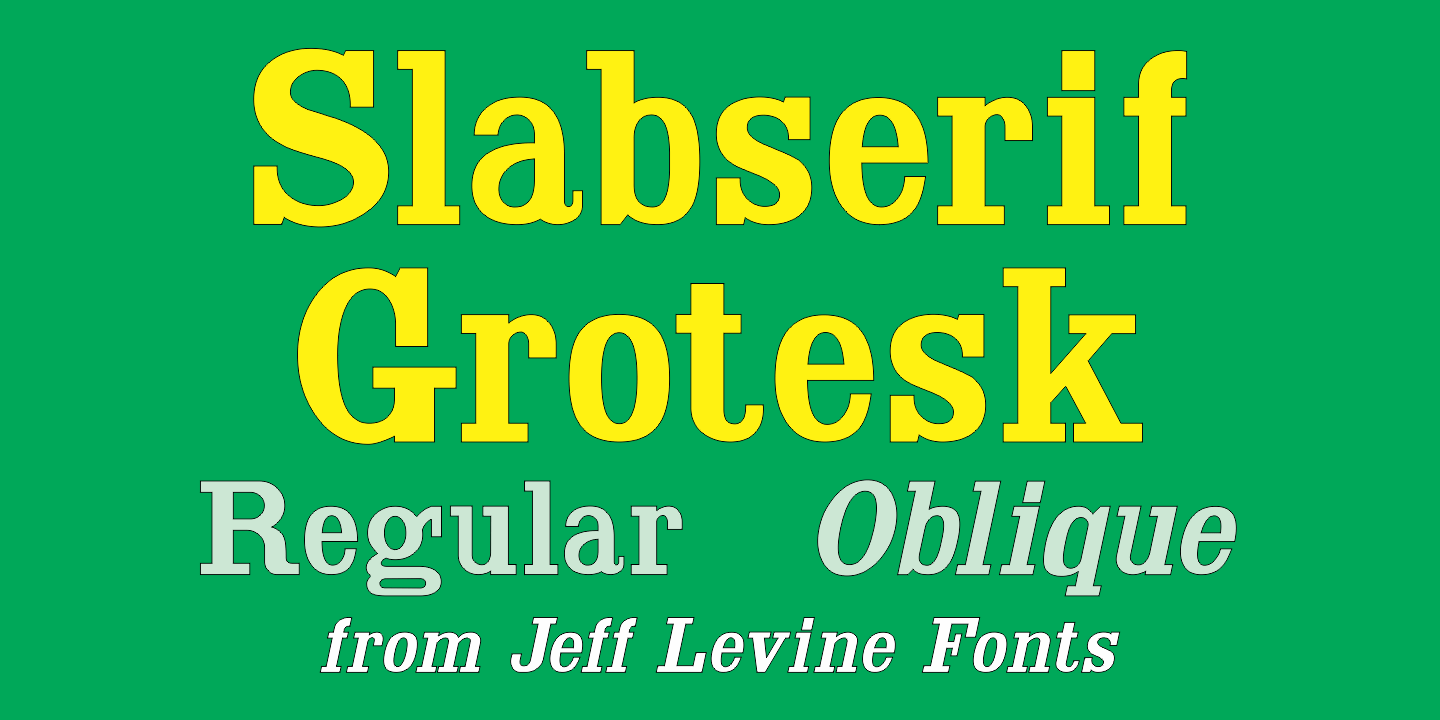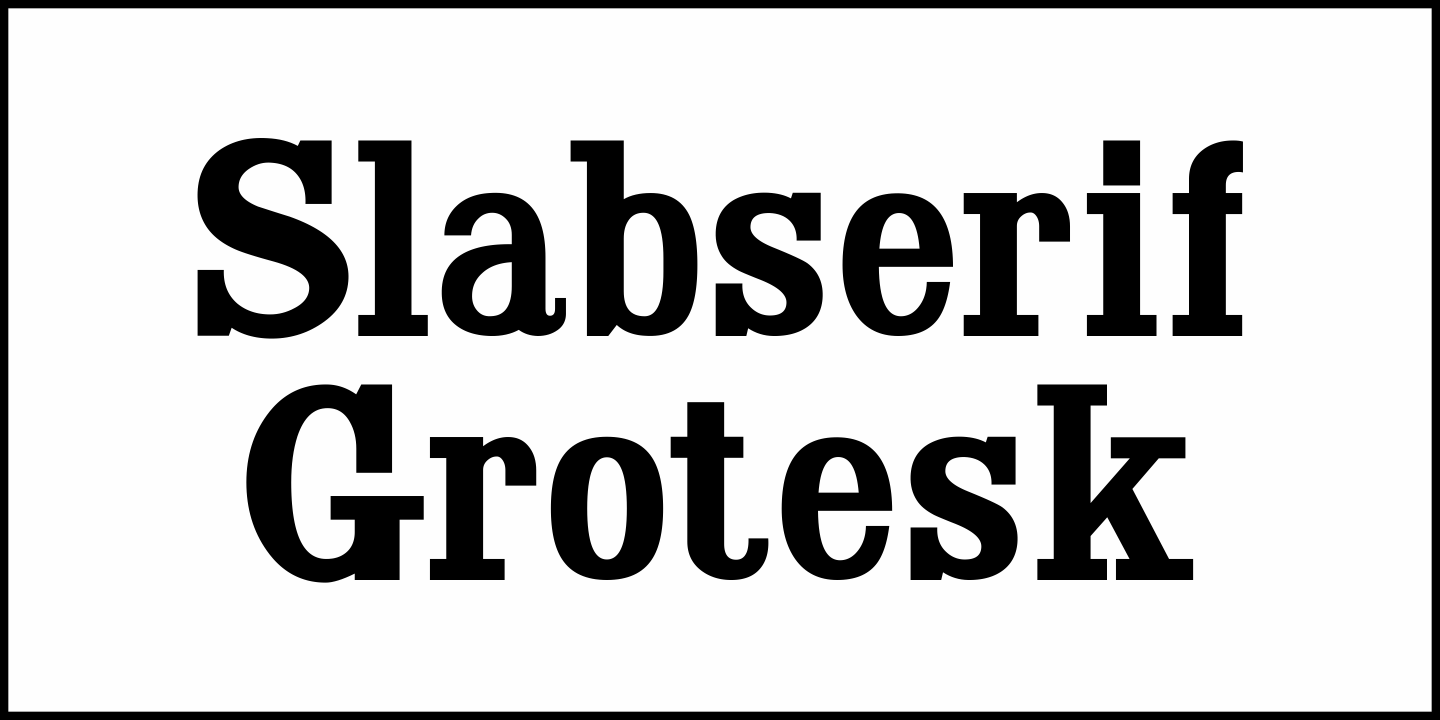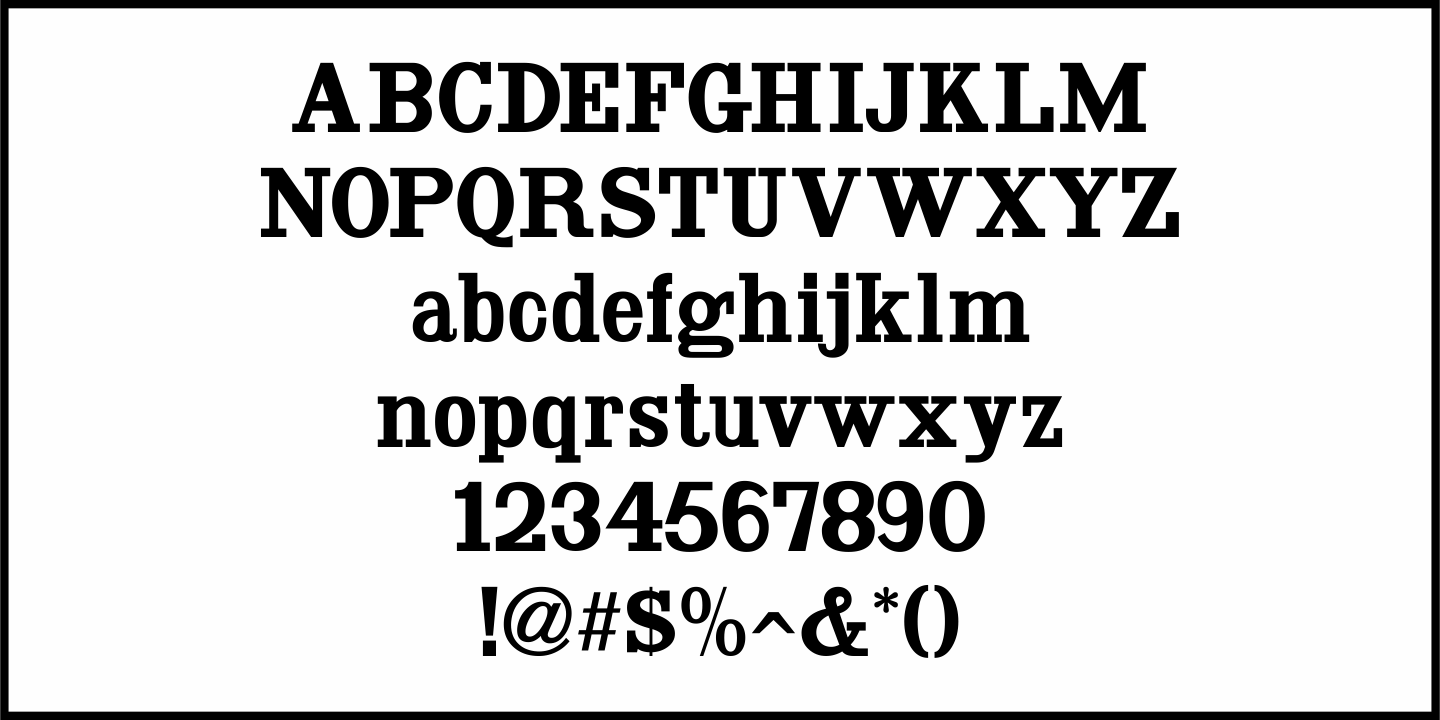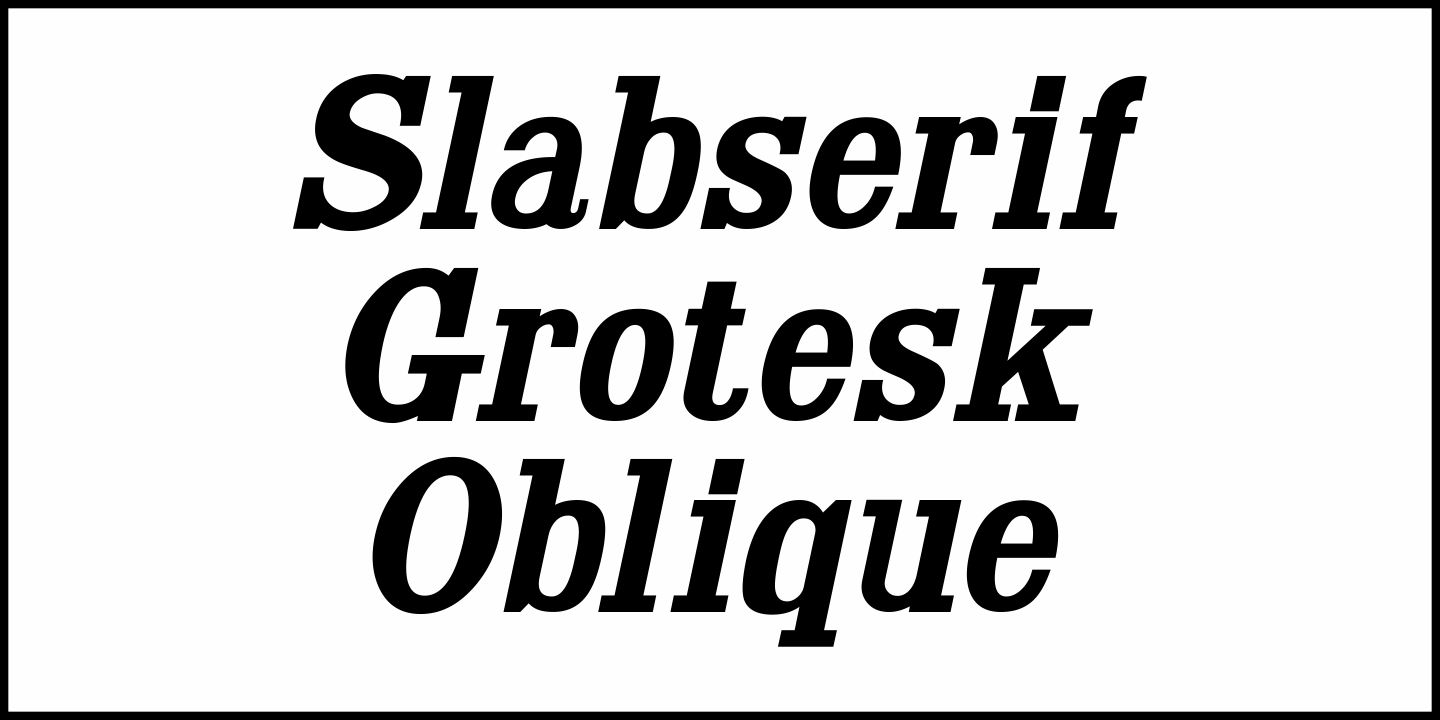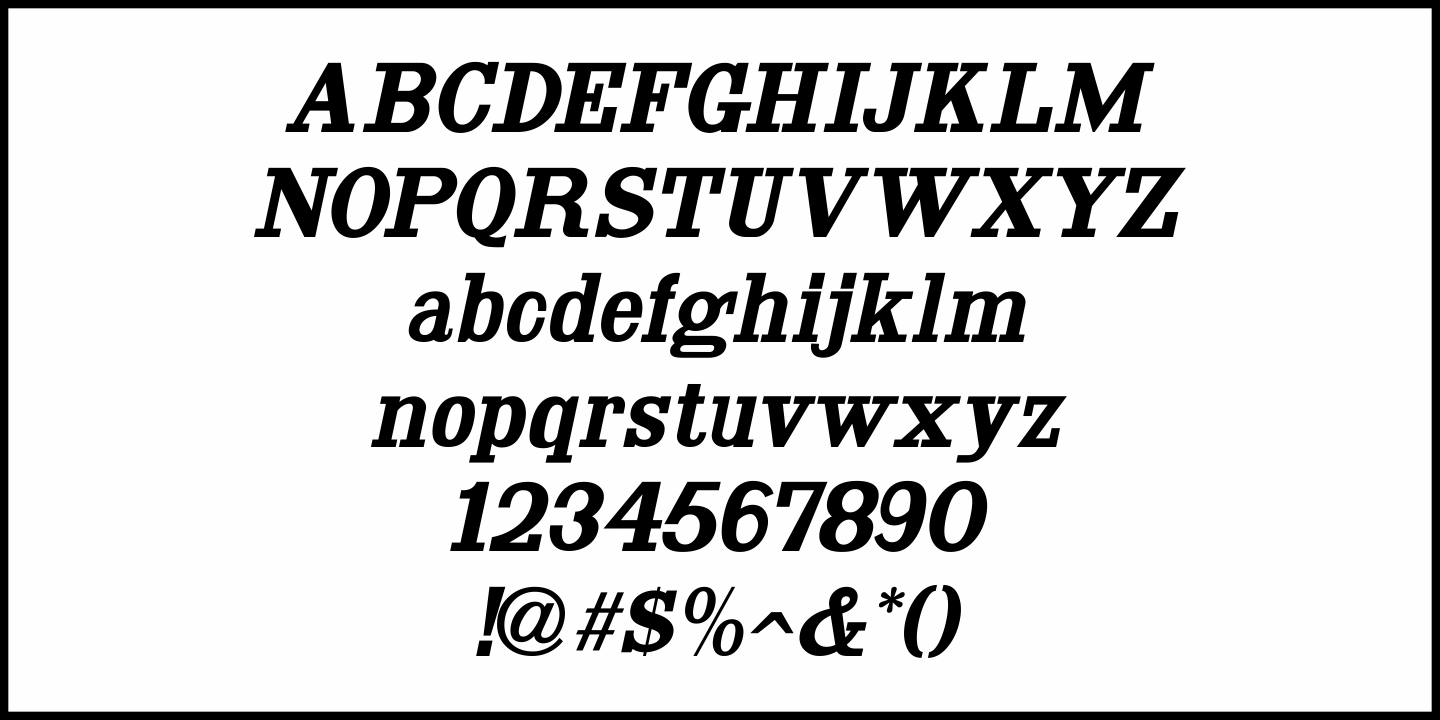
Slabserif Grotesk
Slabserif Grotesk JNL was modeled from an example of a wood type design called Antique Light Face, and is available in both regular and oblique versions.
The numerals (although an odd fit to the overall design) make this vintage font quite unusual and charming.
Slabserif Grotesk JNL Regular by Jeff Levine Fonts